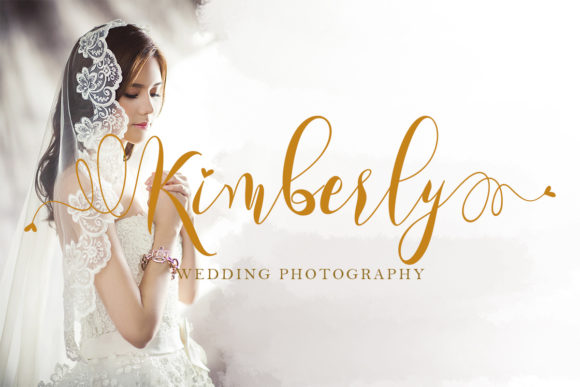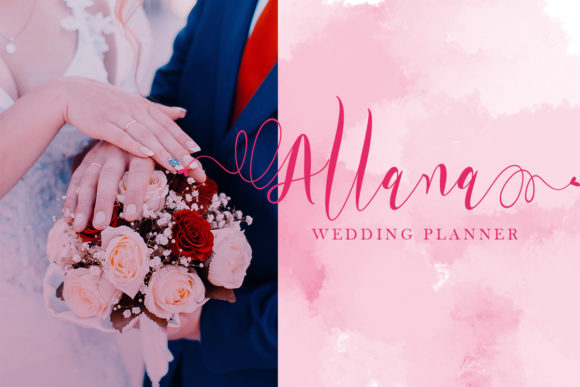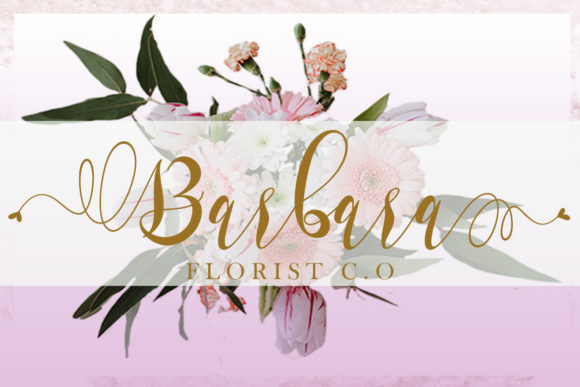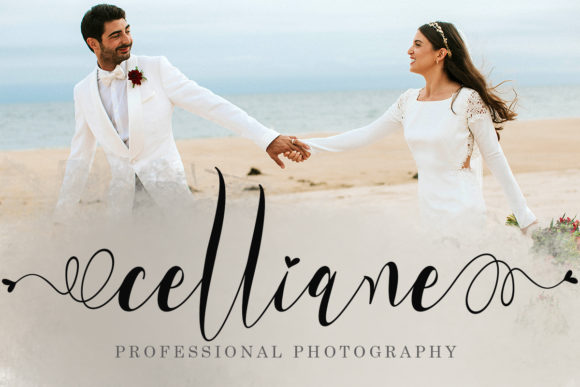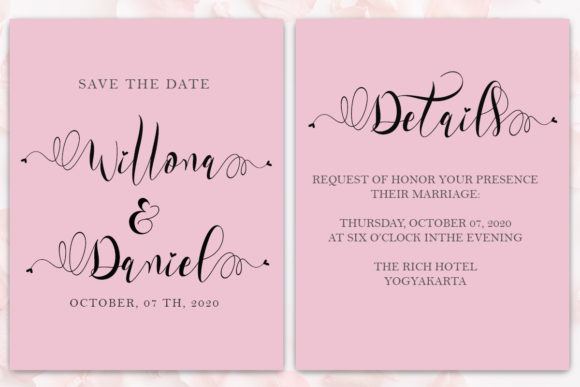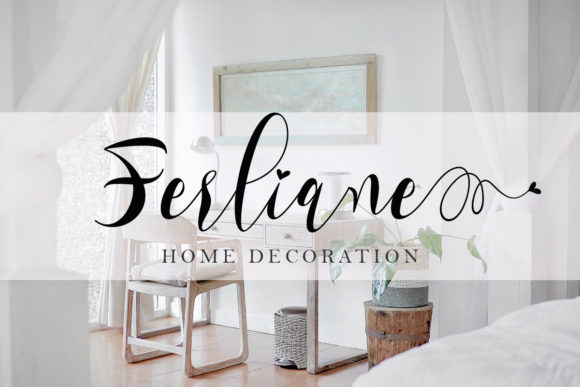
Introduction to Rossaline Font
As a designer, there’s nothing quite like the thrill of bringing a creative project to life. It’s the moment when all the pieces fall into place, and your vision begins to take shape. For many of us, this moment often involves the perfect font. And for those in search of a high-quality, elegant design resource, the Rossaline Font is sure to be a game-changer. With its flowing lines and gorgeous glyphs, this font is the perfect addition to any design.
Whether you’re working on a wedding invitation, a thank you card, or a logo, the Rossaline Font is sure to add a touch of sophistication and elegance. Its smooth lines and stunning alternates make it the perfect choice for designers looking to add a handwritten touch to their work. And the best part? This beautiful font is available for free download, making it a valuable resource for designers on a budget.
So why is the Rossaline Font so valuable for designers? For one, its transparent background makes it easy to work with, and its high-quality design ensures that it will look stunning on any project. Whether you’re working on a personal or professional project, the Rossaline Font is sure to be a design resource you’ll return to again and again.
Key Features of Rossaline Font
- Designed with a unique, elegant aesthetic, making it suitable for a variety of creative projects, from wedding invitations to branding materials.
Honest Review: Rossaline Font
As a designer, I’m always on the lookout for high-quality design resources to enhance my creative projects. The Rossaline Font caught my attention with its elegant and sophisticated design.
- ✨ Elegant and refined design aesthetic
- ⚠️ Limited language support, may not be suitable for multilingual projects
- ⚠️ May not be as customizable as some other fonts, which could be a limitation for designers who like to experiment
Overall, I’m impressed with the Rossaline Font’s clean and sophisticated design. While it may have some limitations, it’s a great addition to any designer’s toolkit, especially for free download. If you’re looking for a high-quality font to elevate your creative project, I’d definitely recommend giving Rossaline a try.
Common Use Cases for Rossaline Font
The Rossaline Font is ideal for a variety of creative projects, including brochures, flyers, business cards, and websites. Its high-quality design and transparent background make it perfect for overlaying text on images, creating a professional and polished look.